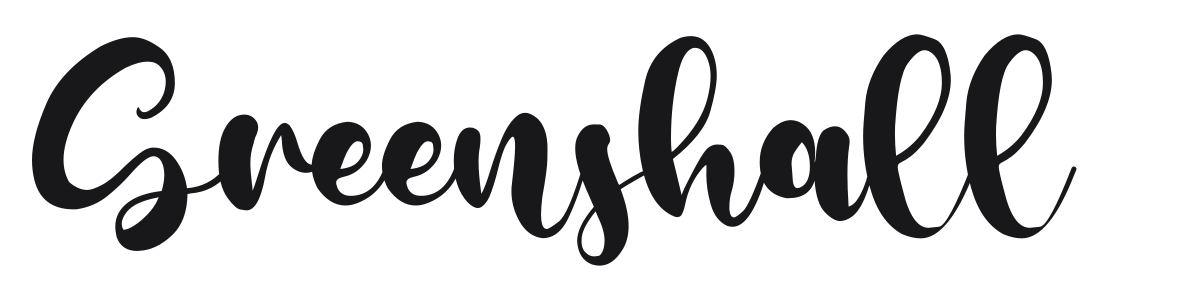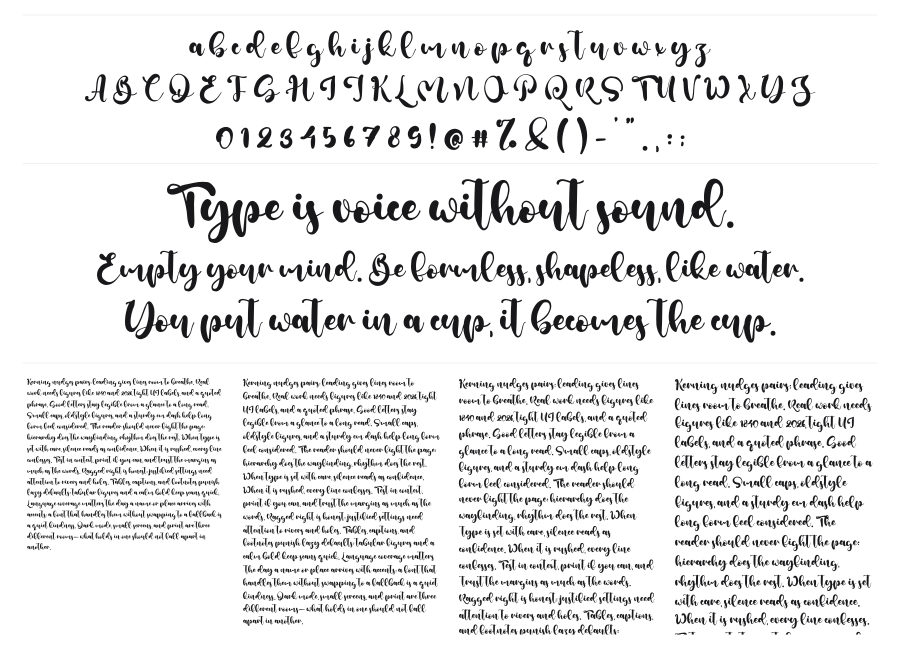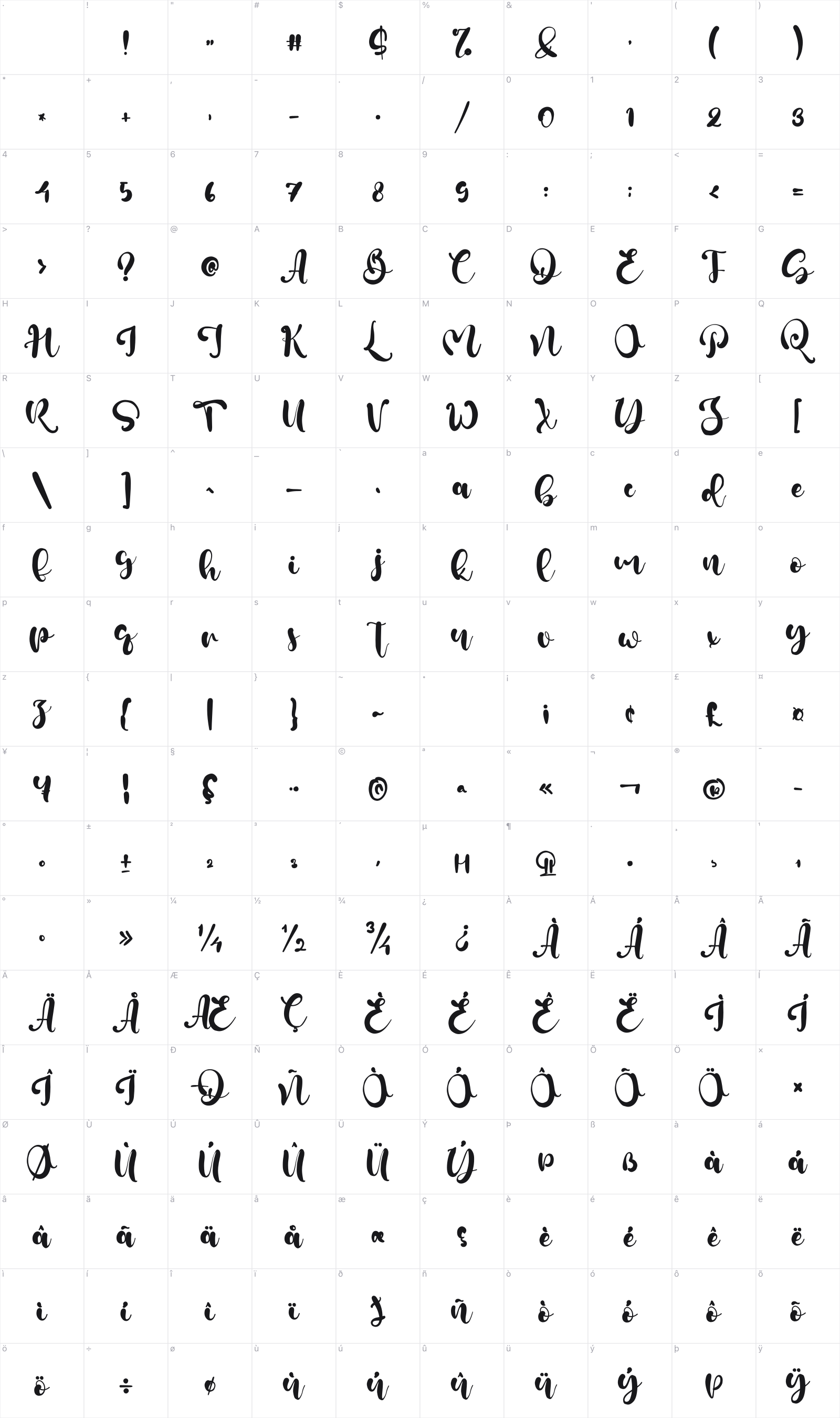
Greenshall
Greenshall is a bold contemporary brush script with lively bounce and fluid ink-like strokes. Its thick-to-thin contrast and looping connectors give it the feel of confident hand-lettering, full of energy without losing elegance. It suits branding, packaging, and any project that needs a warm, handmade personality at headline scale.